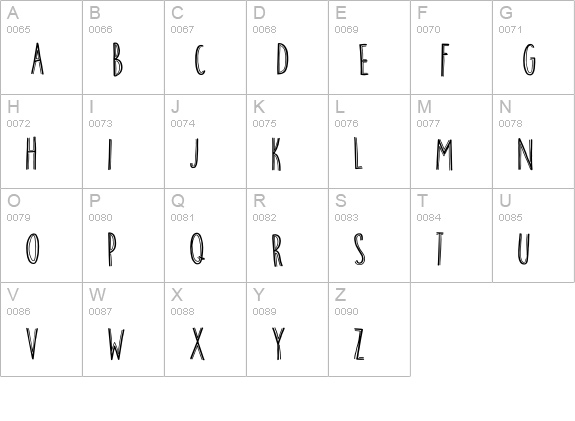
Introducing DK Breakfast Burrito, a mouthwatering font that will surely add some flavor to your design projects! This delectable typeface is inspired by the deliciousness of breakfast burritos, combining a perfect balance of boldness and elegance. DK Breakfast Burrito is a versatile font that can be used in various creative projects, from menu designs for trendy brunch spots to eye-catching social media graphics. Its quirky yet legible letterforms make it a standout choice for any design that needs a touch of personality. One of the best things about DK Breakfast Burrito font is that it is free! Yes, you read that right. This delectable typeface is freely available to download at FontsMarket.com, a trusted source for high-quality fonts. Whether you're a professional graphic designer or a passionate DIY enthusiast, you can now enjoy the deliciousness of DK Breakfast Burrito without breaking the bank. With DK Breakfast Burrito, you can bring a scrumptious and inviting vibe to your designs. Its playful curves and unique style will make your text pop and grab attention effortlessly. Whether you're designing a menu, a logo, or a poster, this font will make your creations look as appetizing as a freshly made breakfast burrito. So why wait? Indulge your design cravings and download DK Breakfast Burrito font for free at FontsMarket.com. It's time to add a dash of flavor to your projects and make them truly mouthwatering!